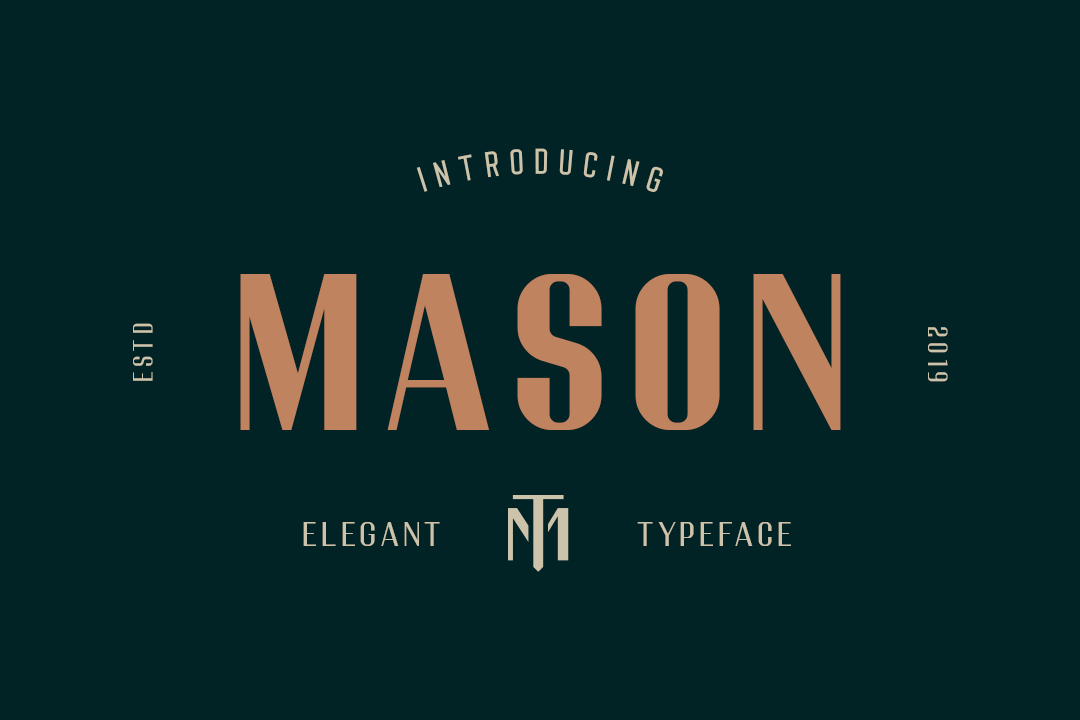
Mason Elegant Typeface
Mason is an elegant sans-serif display font created specifically for display typography. with a masculine but elegant style very suitable for purposes such as fashion magazine titles, logos, posters or as website text headers.